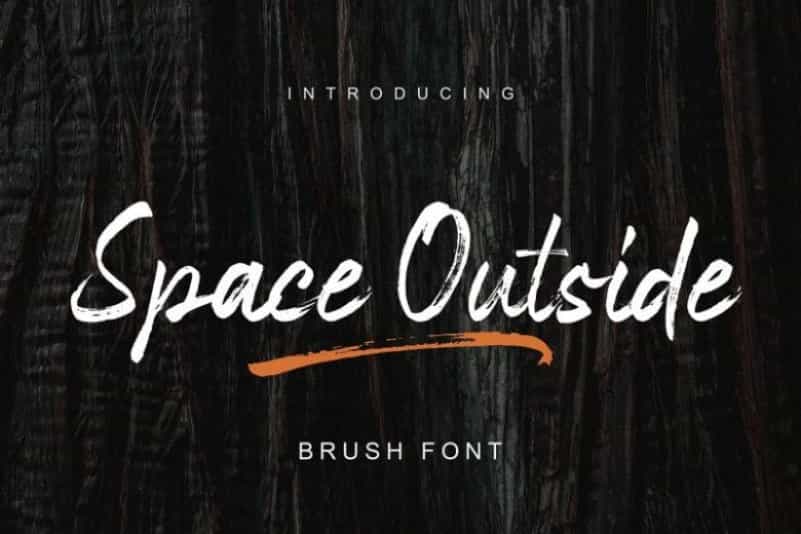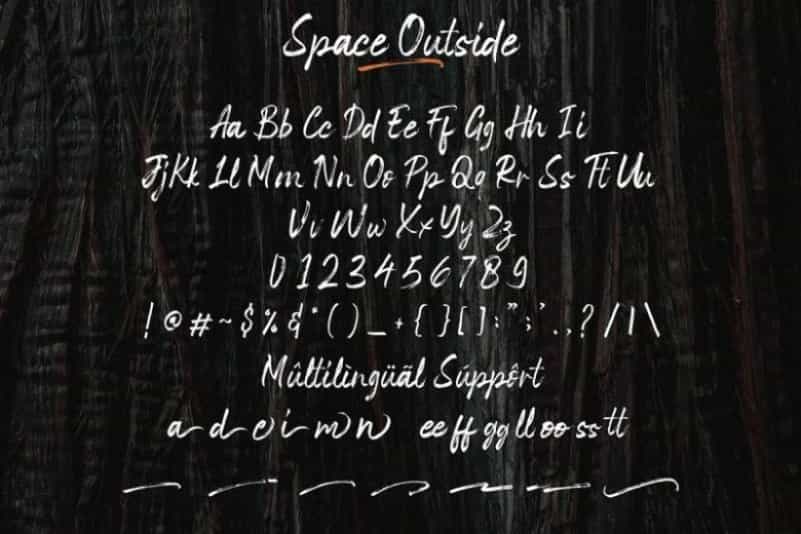
Space Outside is a very basic artistic multipurpose royally designed handmade brush script font. It is a bold font with the realistic brush like edge to it. It is a brush font that was designed to make it look more natural as if it was created with a brush that will give a more elegant and grand feel.